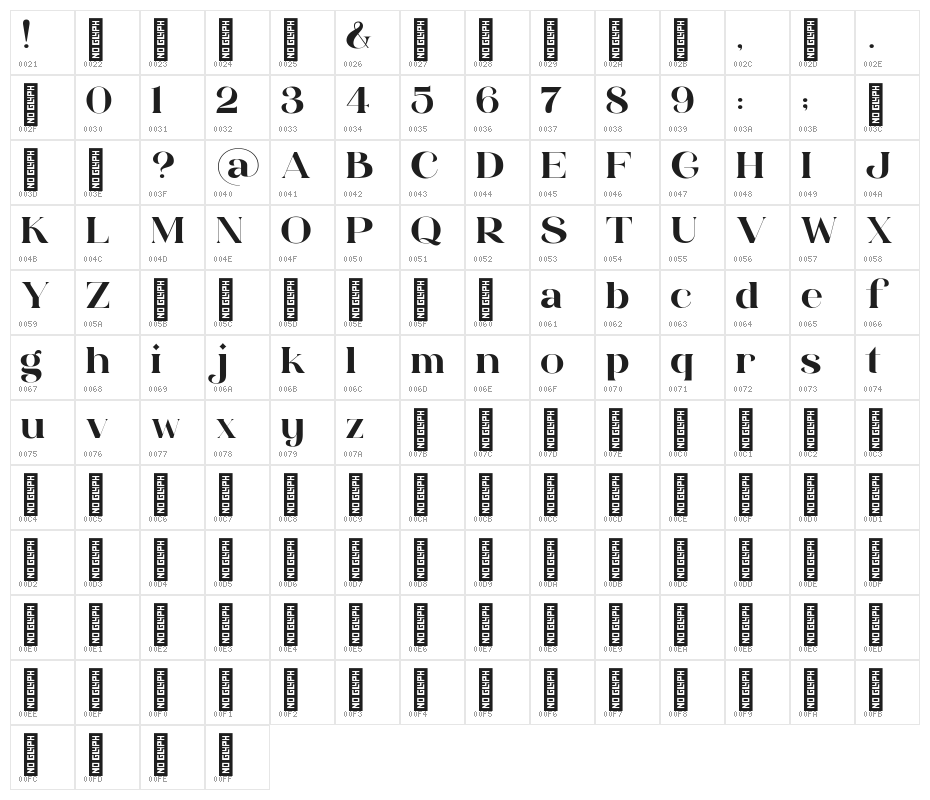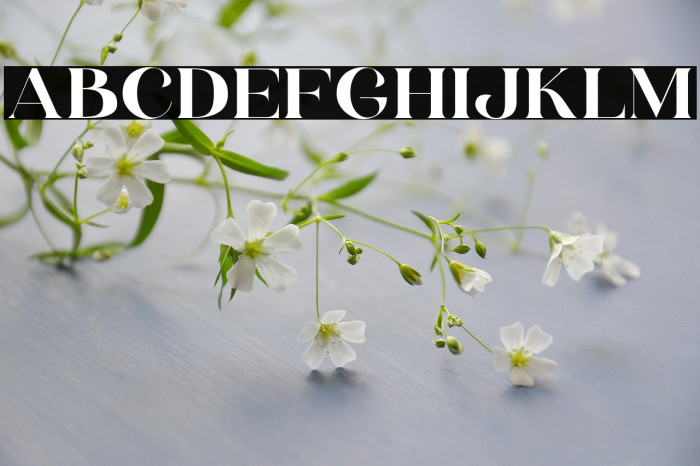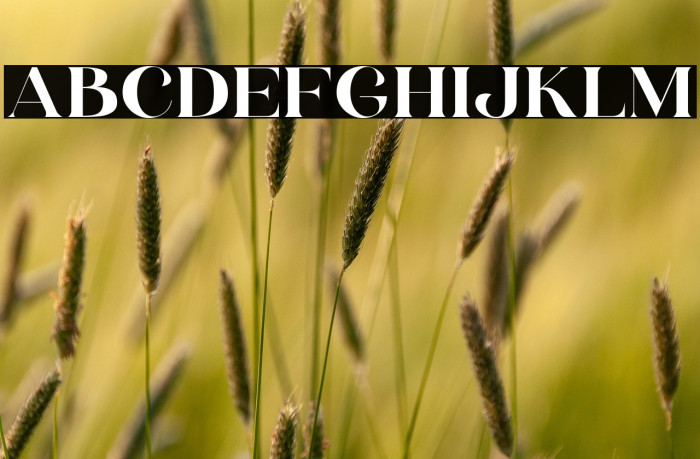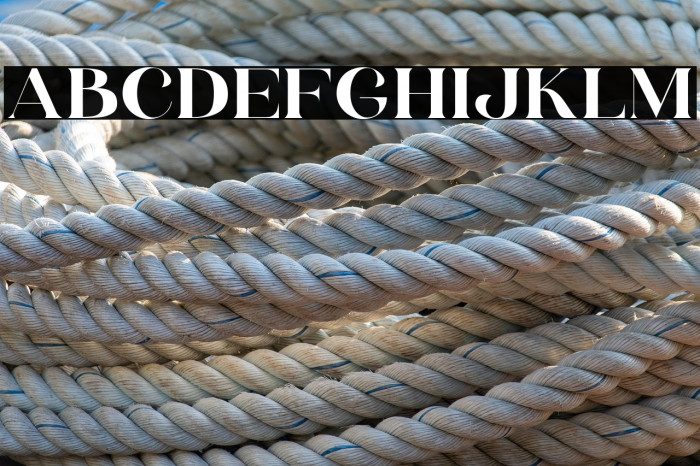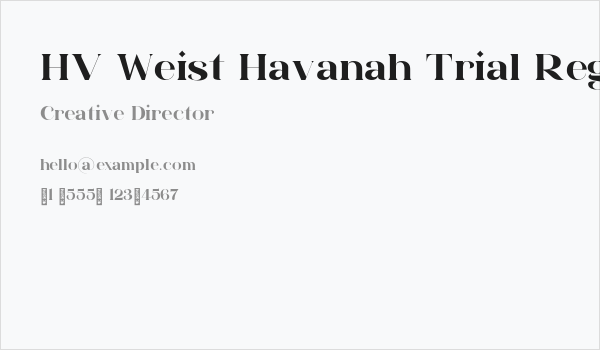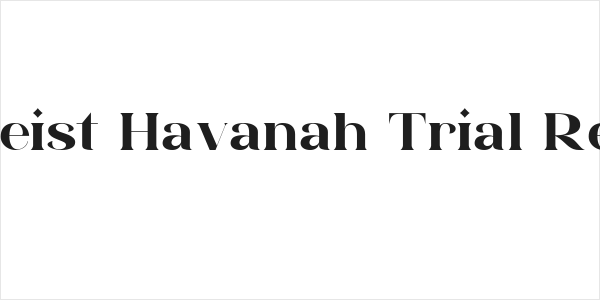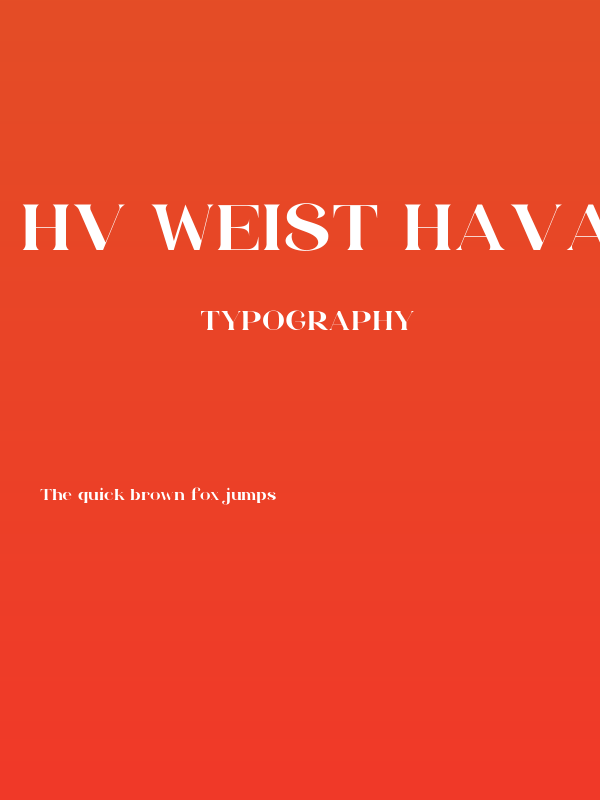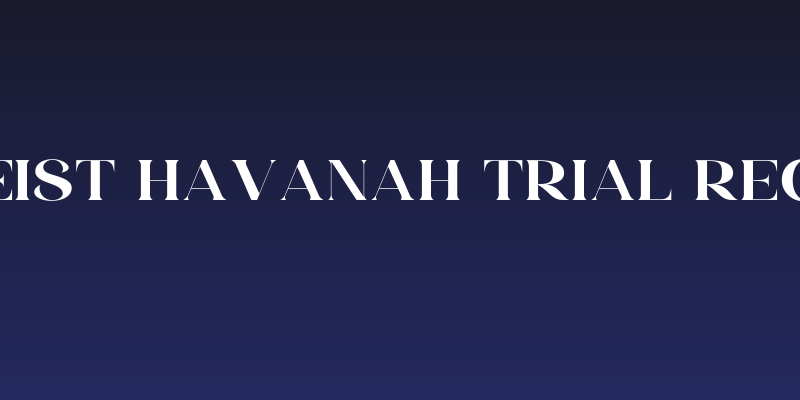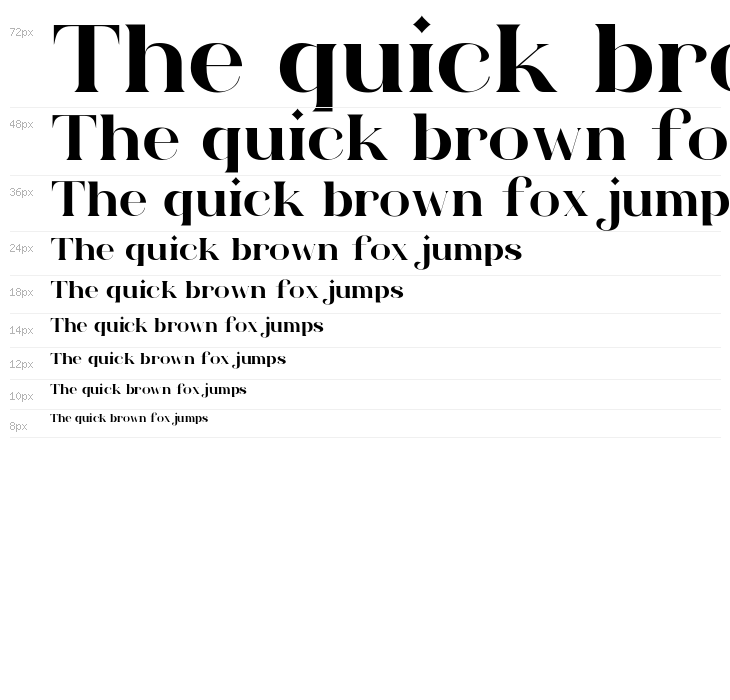
HV Weist Havanah Trial Regular Font
HV Weist Havanah Trial Regular Description
This font exhibits a sophisticated blend of modern and classic elements, characterized by high contrast between thick and thin strokes. The uppercase letters are bold and commanding, with sharp serifs that add a touch of elegance. The lowercase letters maintain a consistent style, offering a smooth transition between characters. The numerals are distinct and clear, ensuring readability. The overall design is sleek and stylish, making it suitable for a variety of applications. The font's unique flair is evident in its special characters, which are crafted with precision and attention to detail.